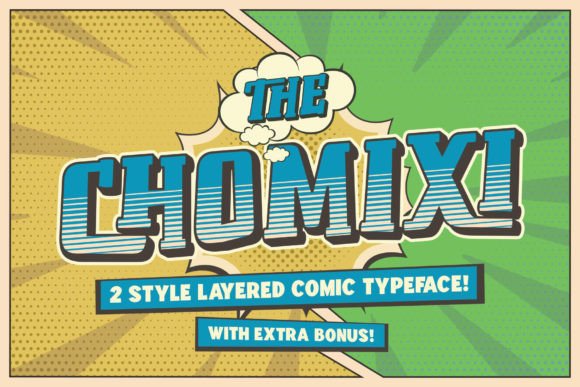
Unleash Your Creativity with Chomoxi Font: A Fun, Playful, and Bold Comic Display Font
Are you tired of using the same old fonts for your design projects? Do you want to add a touch of uniqueness and playfulness to your creations? Look no further than Chomoxi Font, a bold and comic display font that’s sure to turn heads. With its distinctive style and PUA encoding, Chomoxi Font is the perfect choice for designers and crafters looking to take their projects to the next level.
The Unique Charm of Chomoxi Font
Chomoxi Font is a one-of-a-kind font that’s designed to add a dash of fun and personality to any design project. Its bold and playful style is reminiscent of classic comic books, making it perfect for projects that require a touch of nostalgia and whimsy. Whether you’re creating a logo, poster, or social media graphic, Chomoxi Font is sure to make your design stand out from the crowd.
One of the things that sets Chomoxi Font apart from other fonts is its unique charm. The font features a range of glyphs and swashes that can be easily accessed using PUA encoding. This means that you can add an extra layer of personality to your designs, creating a truly one-of-a-kind look that’s sure to capture the attention of your audience.
The Benefits of PUA Encoding
So, what is PUA encoding, and how does it benefit designers and crafters? PUA (Private Use Area) encoding is a system that allows font designers to include additional characters and glyphs in their fonts, which can be accessed using specific keyboard shortcuts or software. In the case of Chomoxi Font, PUA encoding means that you can easily access all the glyphs and swashes included in the font, giving you a wide range of creative options.
The benefits of PUA encoding are numerous. For one, it allows you to add an extra layer of personality to your designs, setting them apart from others. It also gives you more creative freedom, allowing you to experiment with different glyphs and swashes to find the perfect look for your project. And, with Chomoxi Font, you can rest assured that you’re getting a high-quality font that’s designed to deliver exceptional results.
In conclusion, Chomoxi Font is a fun, playful, and bold comic display font that’s perfect for designers and crafters looking to add a touch of uniqueness and personality to their projects. With its PUA encoding and range of glyphs and swashes, Chomoxi Font is the perfect choice for anyone looking to take their designs to the next level. So why wait? Download Chomoxi Font today and unleash your creativity!